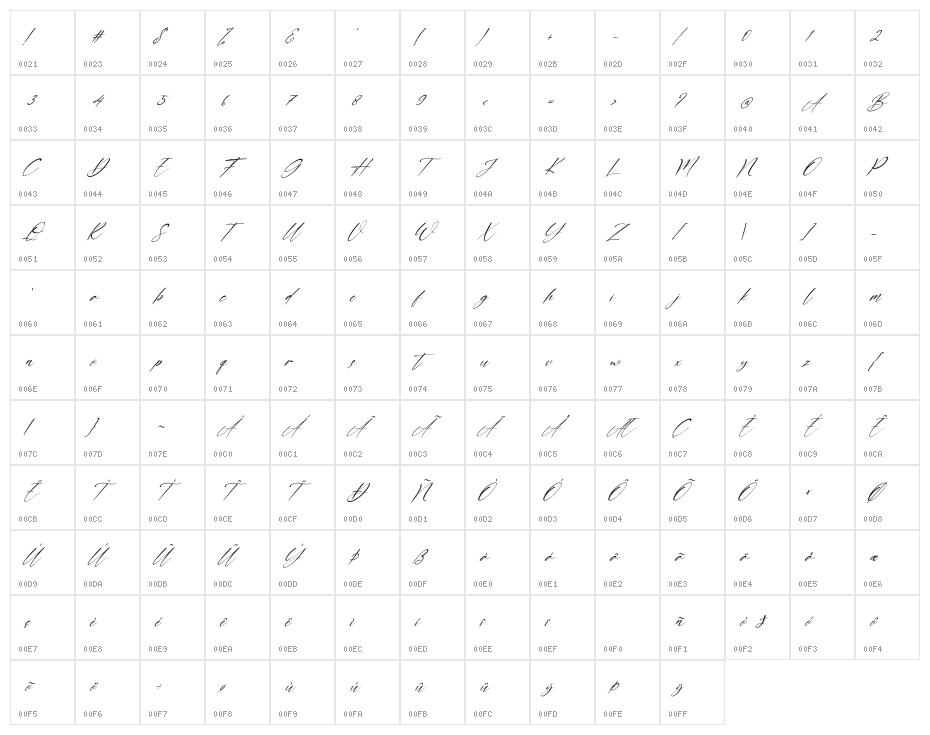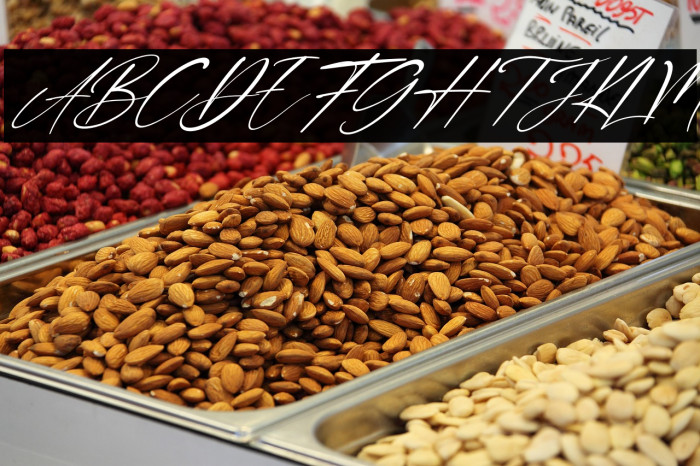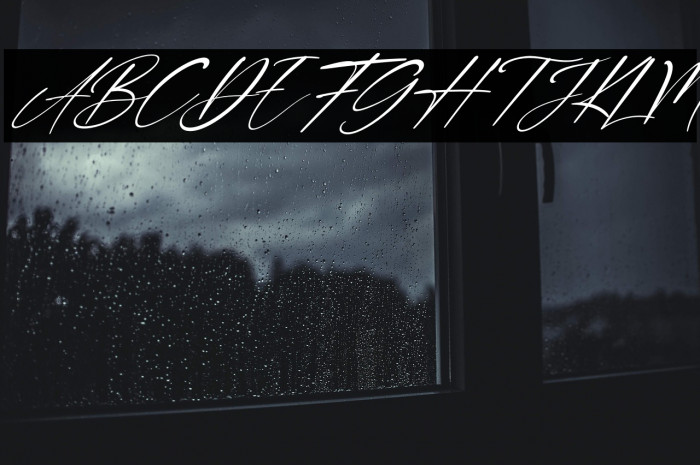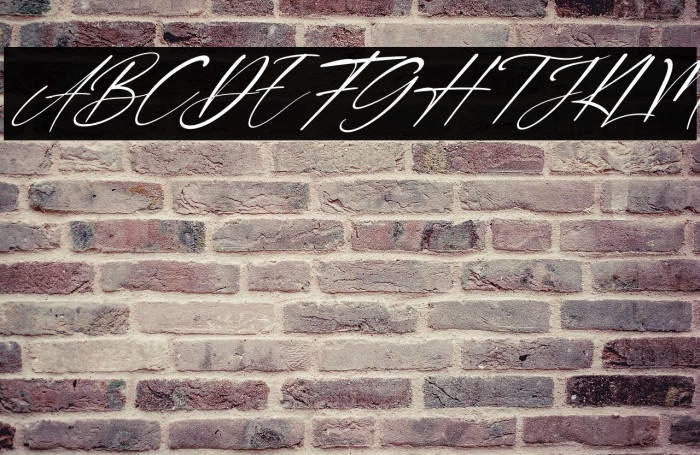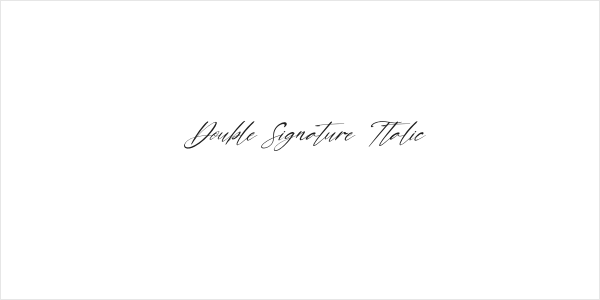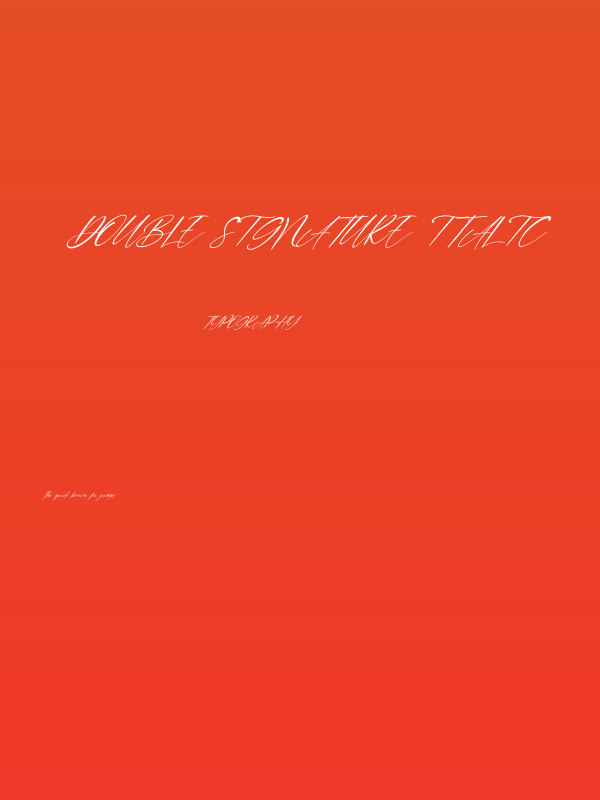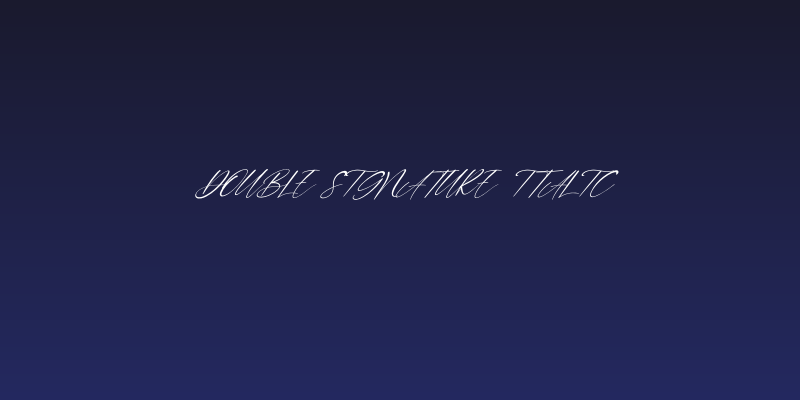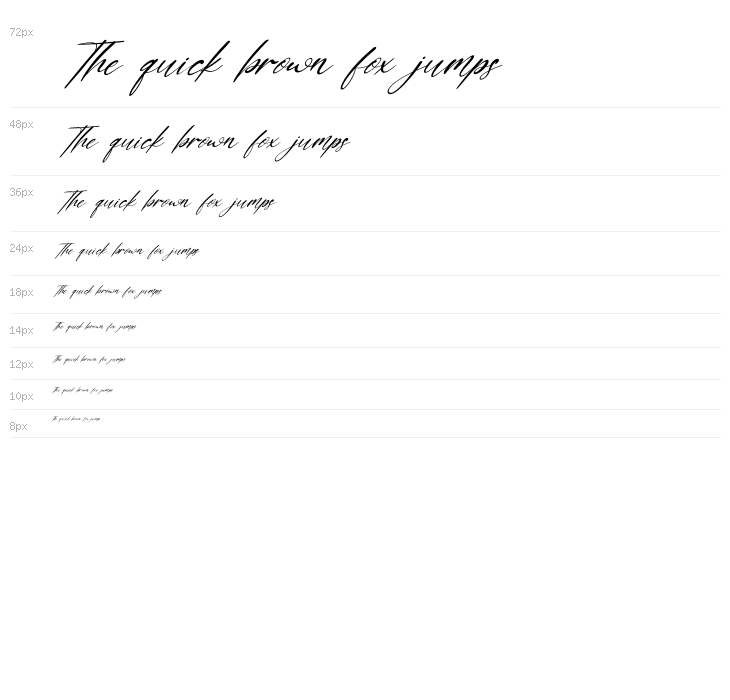
Double Signature Italic Font
Double Signature Italic Description
This font exudes elegance and sophistication with its flowing, cursive style. The letters are interconnected, creating a seamless and fluid appearance reminiscent of a handwritten signature. The strokes are thin and delicate, with a slight slant that adds to the overall graceful aesthetic. The uppercase letters are particularly ornate, featuring elaborate loops and swirls, while the lowercase letters maintain a more understated elegance. The numbers and special characters are consistent with the script style, ensuring a cohesive look across all elements. This font is perfect for projects that require a personal touch, such as invitations, greeting cards, or branding materials.